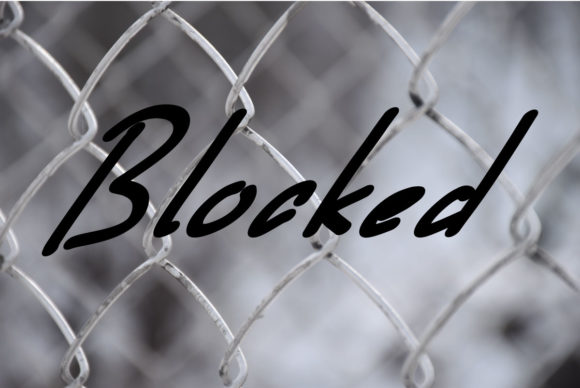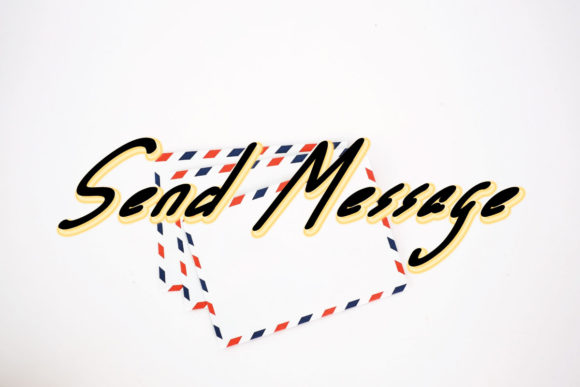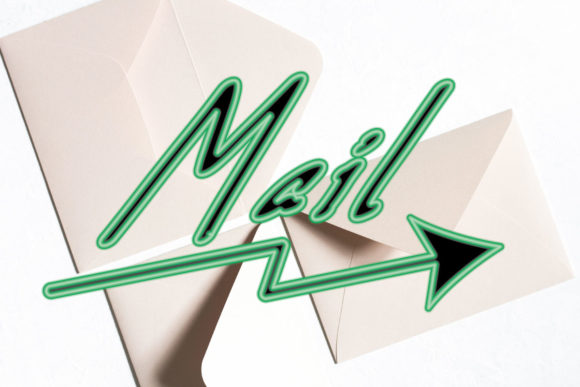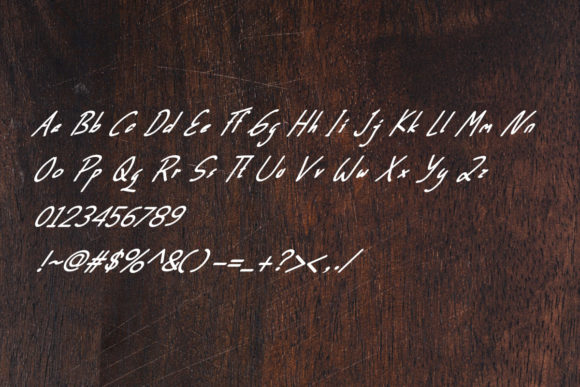
Introducing Chatting Font: The Sweet and Friendly Handwritten Font for Your Creative Projects
Are you tired of using the same old fonts for your designs? Do you want to add a personal touch to your creations? Look no further than Chatting Font, a sweet and friendly handwritten font that’s perfect for a wide range of projects. With its natural and unique style, Chatting Font is incredibly versatile and can be used for everything from greeting cards to branding and advertising.
The Characteristics of Chatting Font
So, what makes Chatting Font so special? For starters, its handwritten style gives it a warm and approachable feel that’s perfect for designs that need a personal touch. The font’s natural and unique style makes it stand out from more traditional fonts, and its friendly tone is sure to put a smile on your readers’ faces.
One of the best things about Chatting Font is its versatility. Whether you’re creating a children’s book, a craft tutorial, or a social media post, this font is sure to fit right in. And with its highly legible design, you can use it for both headings and body text.
The Benefits of Using Chatting Font
So, why should you choose Chatting Font for your next project? Here are just a few benefits of using this amazing font:
- Unique and eye-catching: Chatting Font’s natural and unique style makes it a great way to add some personality to your designs.
- Highly versatile: Whether you’re creating a digital or print design, Chatting Font is sure to fit right in.
- Easy to read: The font’s highly legible design makes it perfect for both headings and body text.
- Perfect for creative projects: Chatting Font is a great choice for crafters, designers, and anyone else who loves to create unique and eye-catching designs.
How to Use Chatting Font in Your Designs
So, how can you use Chatting Font in your designs? Here are a few ideas to get you started:
- Greeting cards: Chatting Font is perfect for creating personalized greeting cards for special occasions.
- Branding and advertising: Use Chatting Font to add a personal touch to your branding and advertising materials.
- Craft tutorials: Chatting Font is a great choice for craft tutorials, especially those that involve handmade or DIY projects.
- Social media: Use Chatting Font to add some personality to your social media posts and stories.
Tips for Getting the Most Out of Chatting Font
Here are a few tips for getting the most out of Chatting Font:
- Experiment with different colors: Chatting Font looks great in a variety of colors, so don’t be afraid to experiment and find the perfect hue for your design.
- Pair it with other fonts: Chatting Font pairs well with a variety of other fonts, so try combining it with some of your other favorites.
- Use it for headings and body text: Chatting Font’s highly legible design makes it perfect for both headings and body text.
| Font Name | Chatting Font |
| Author | Designvector10 |
In conclusion, Chatting Font is a sweet and friendly handwritten font that’s perfect for a wide range of creative projects. With its natural and unique style, highly legible design, and versatile nature, it’s a great choice for designers, crafters, and anyone else who loves to create unique and eye-catching designs. So why not give Chatting Font a try and see the difference it can make in your designs?
The only limit to what you can create with Chatting Font is your imagination! So don’t be afraid to get creative and experiment with different designs, colors, and font combinations. With Chatting Font, the possibilities are endless!